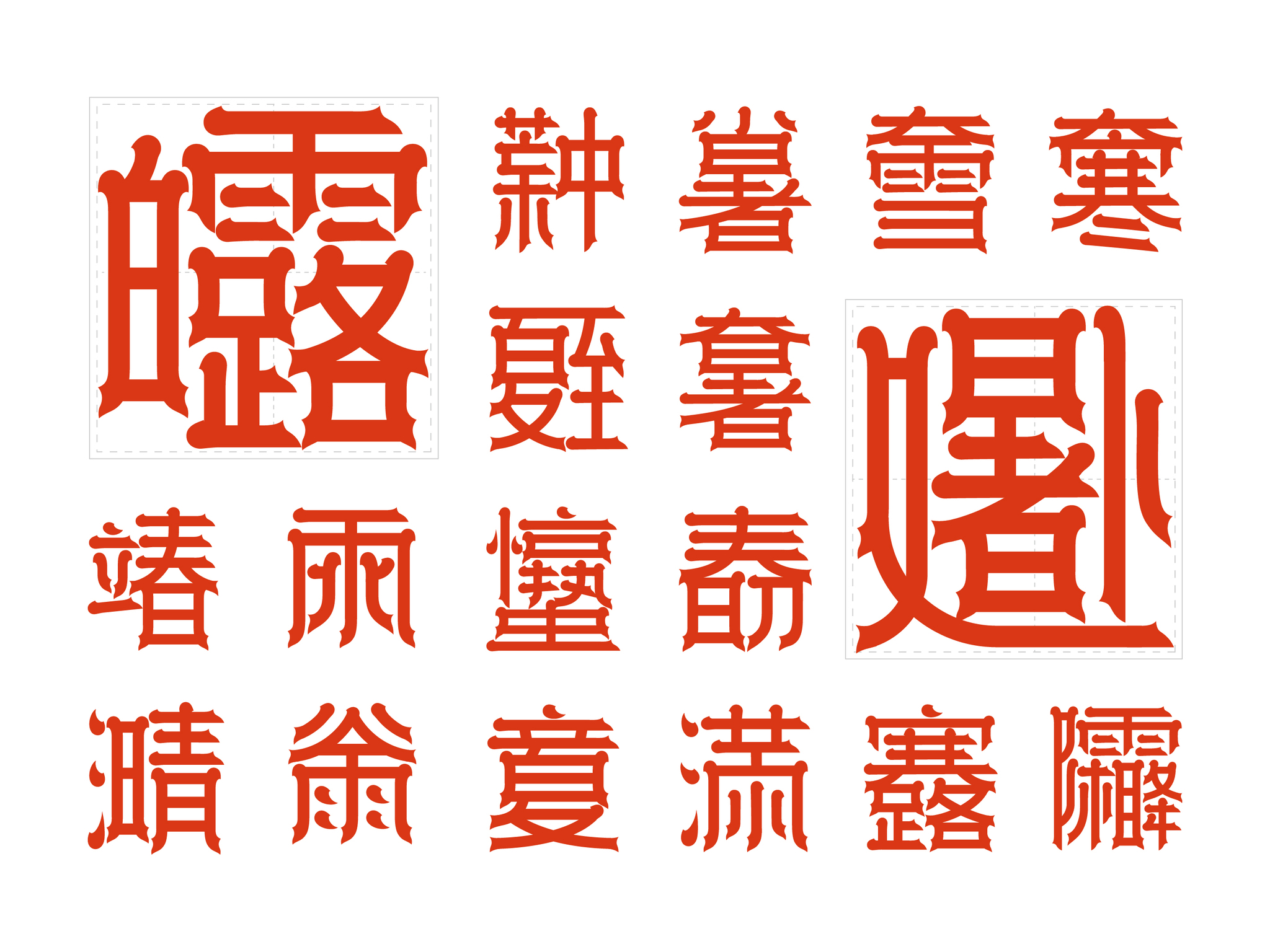
ZD fishtail font
Shenzhen Zdesign Co., LtdChinese folk have a beautiful meaning of Chinese words or short sentences combined into a character writing method, used to decorate our environment, express good wishes, also produced a unique font form "combined character". We use the strokes of fish tail to form some new Chinese characters, and create many beautiful and unique new combined characters by combining characters, named ZD fishtail font. As a new typeface, "ZD fishtail font" expresses Chinese people's understanding and interpretation of "beauty" in every stroke. In this era of rapid development of science and technology, it provides people with a font with beautiful meaning.